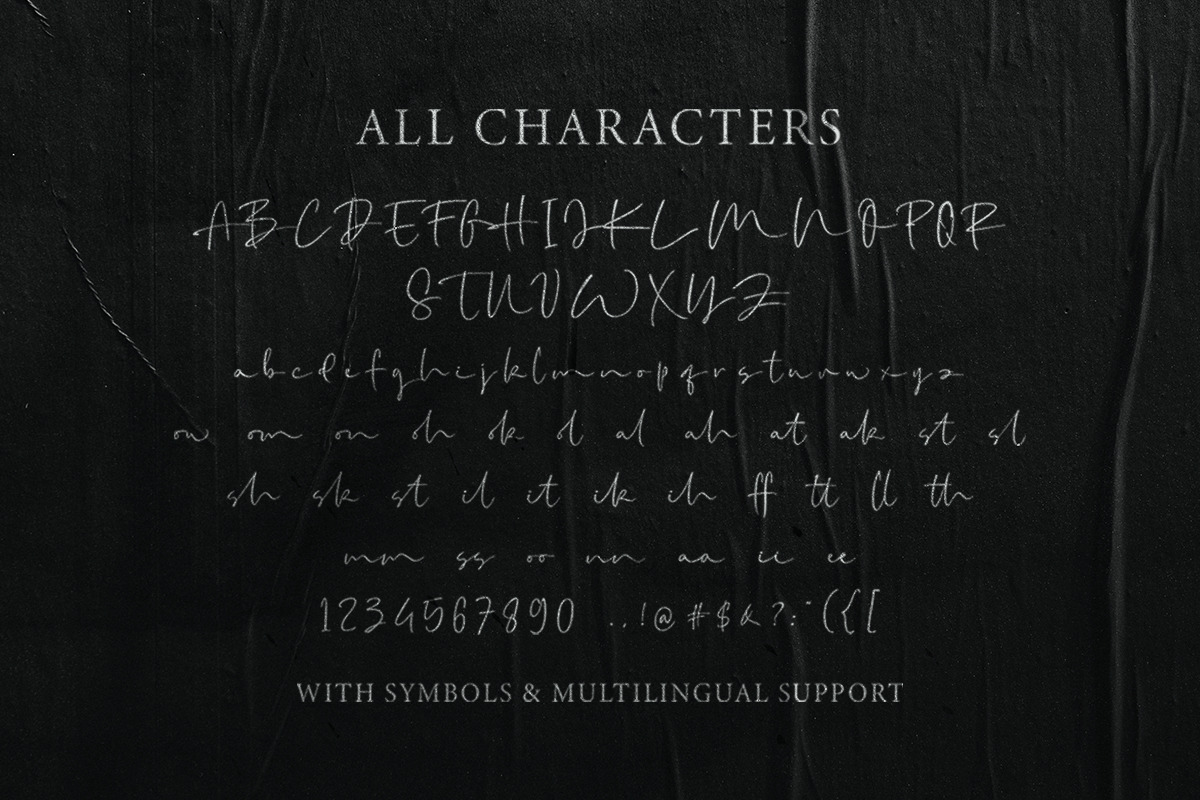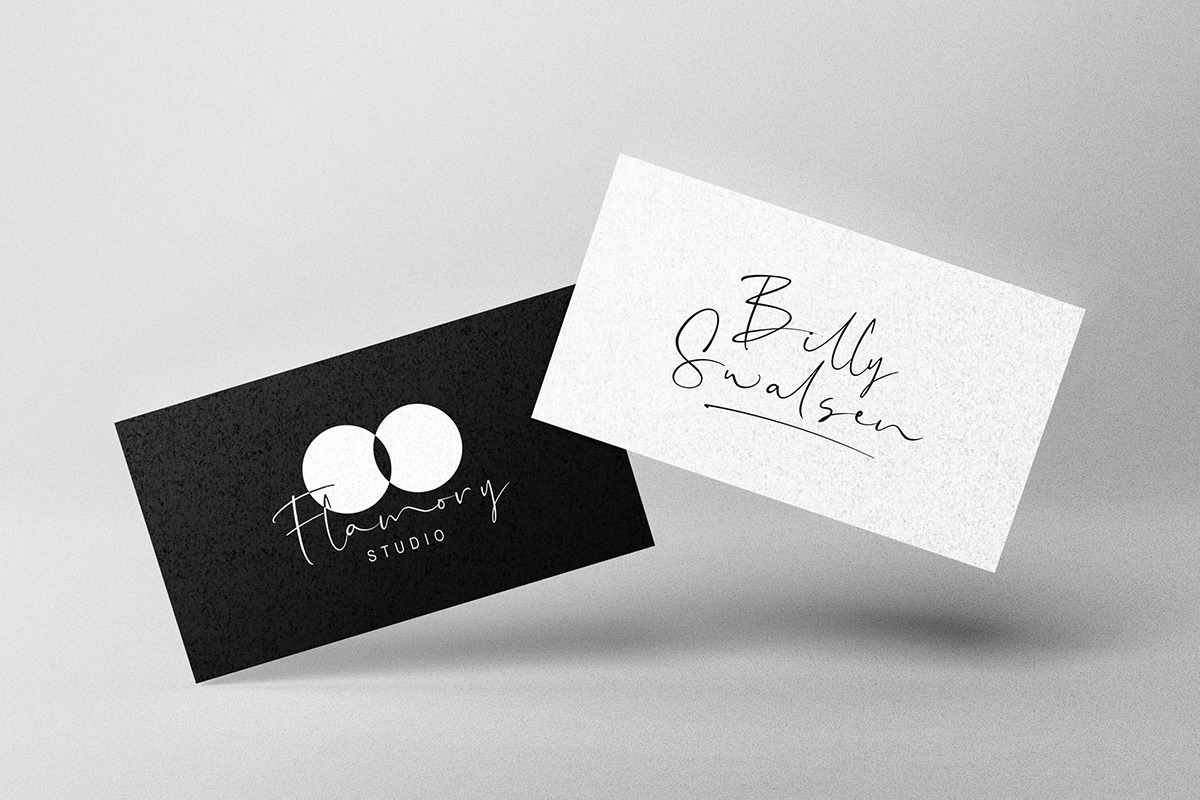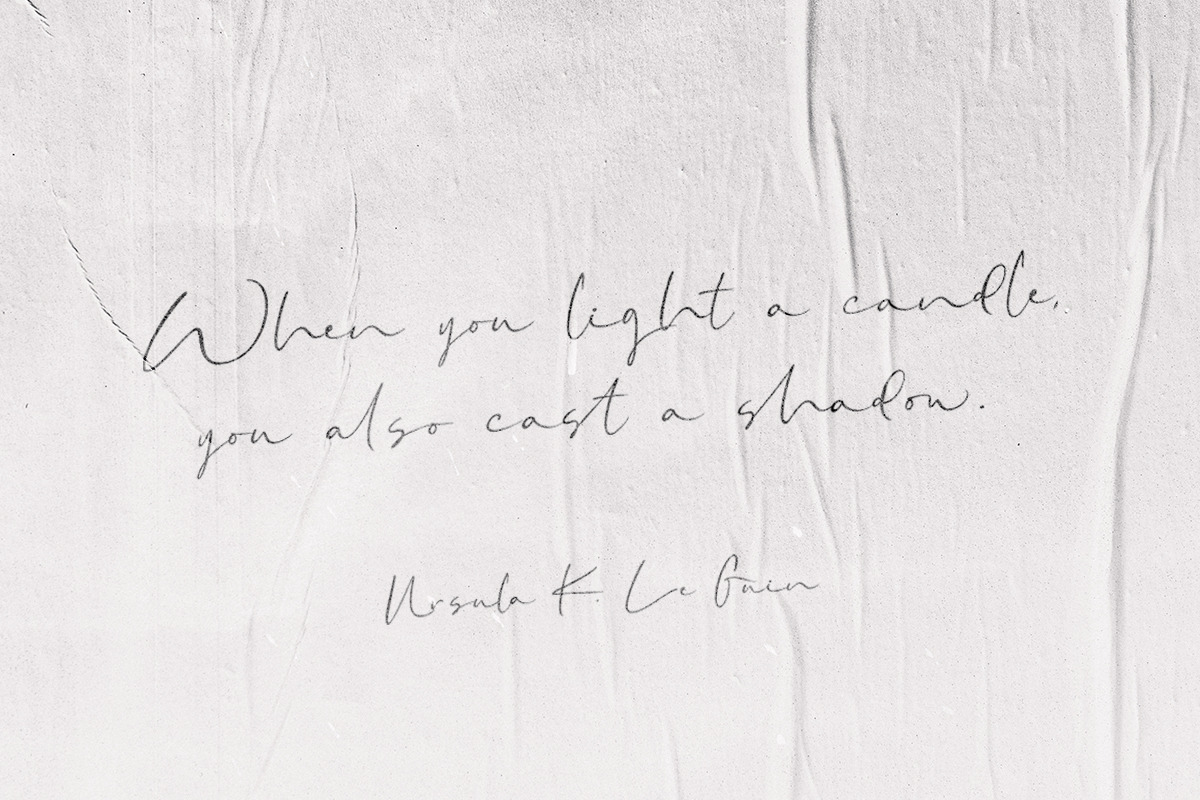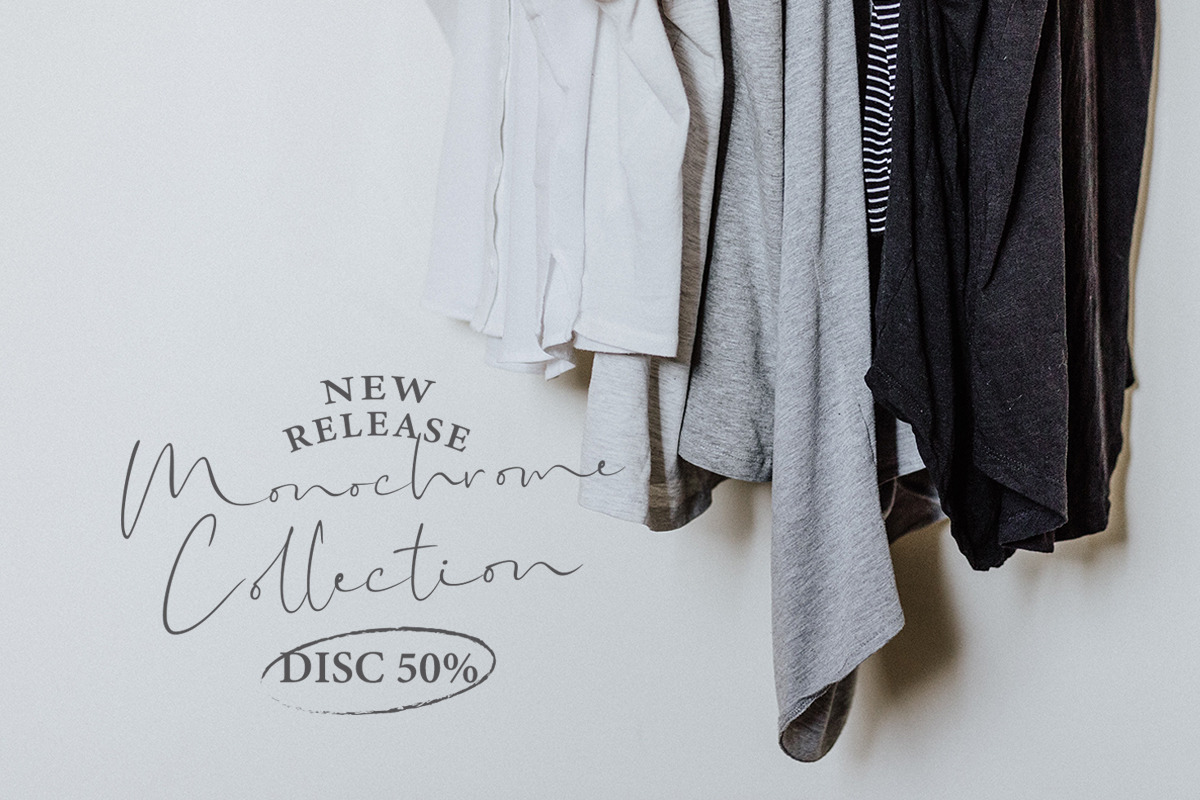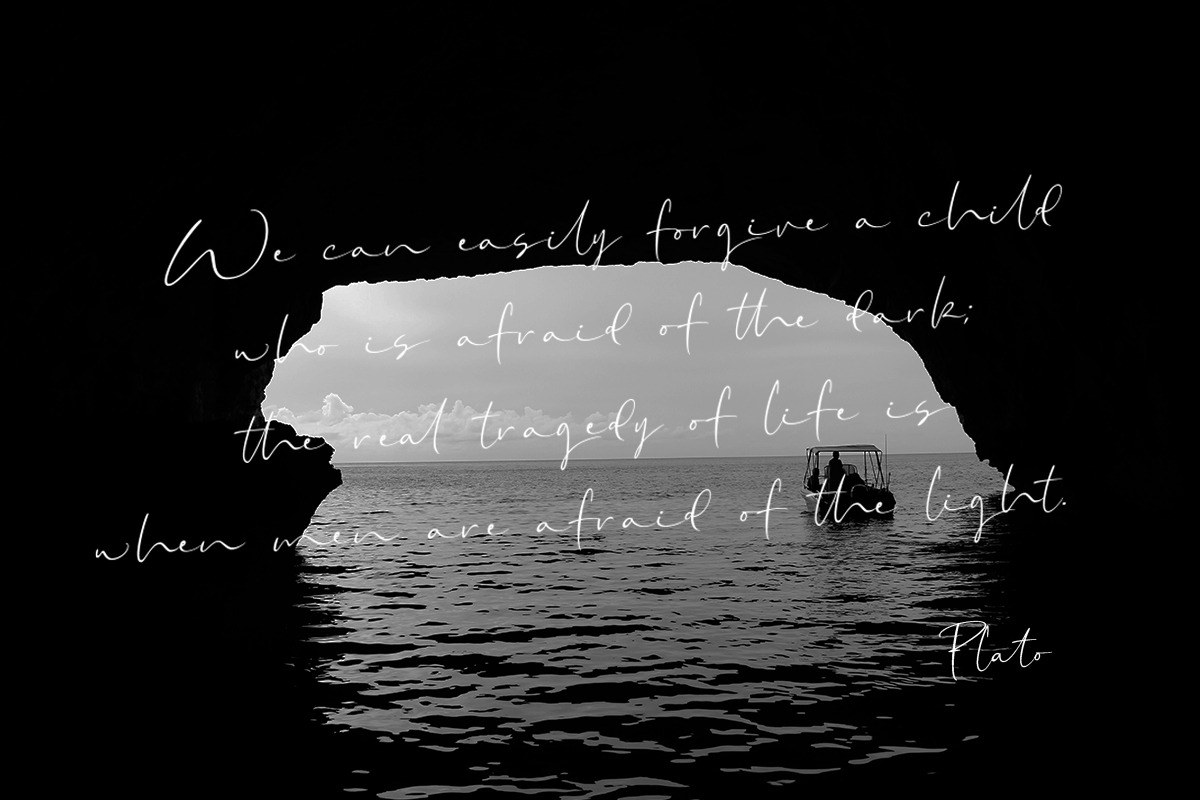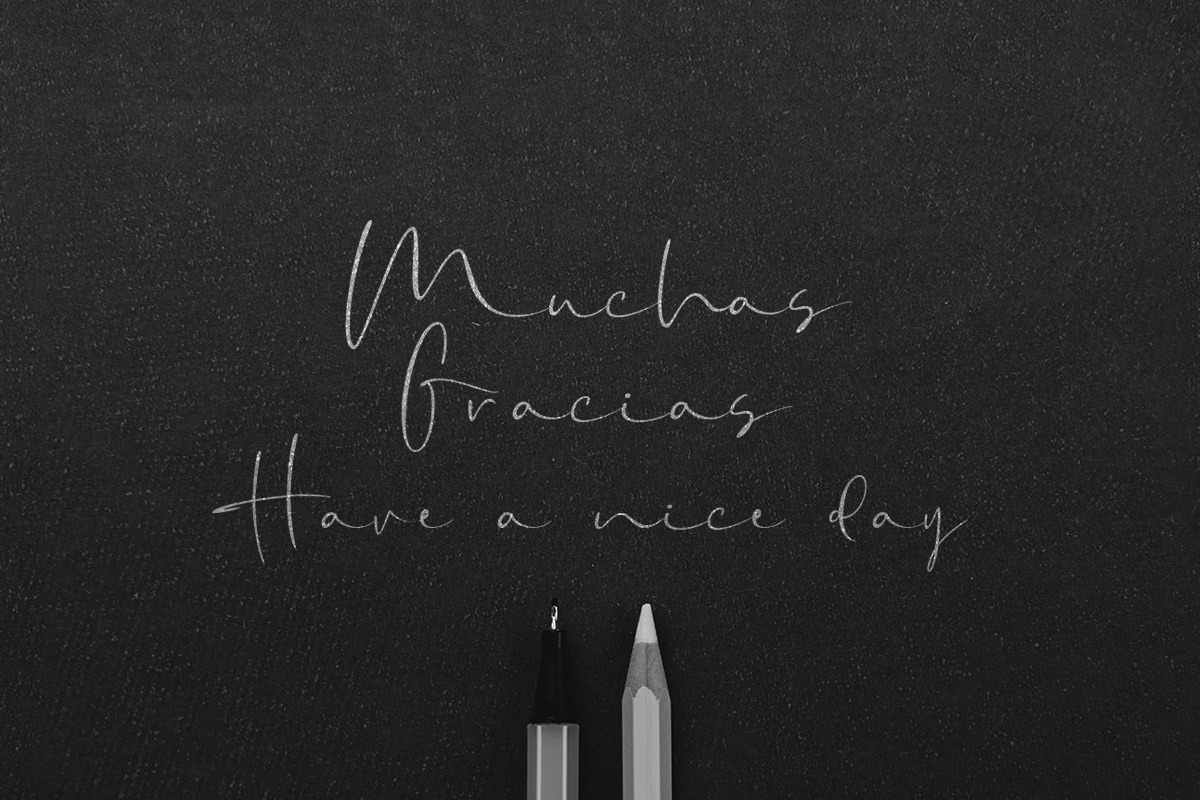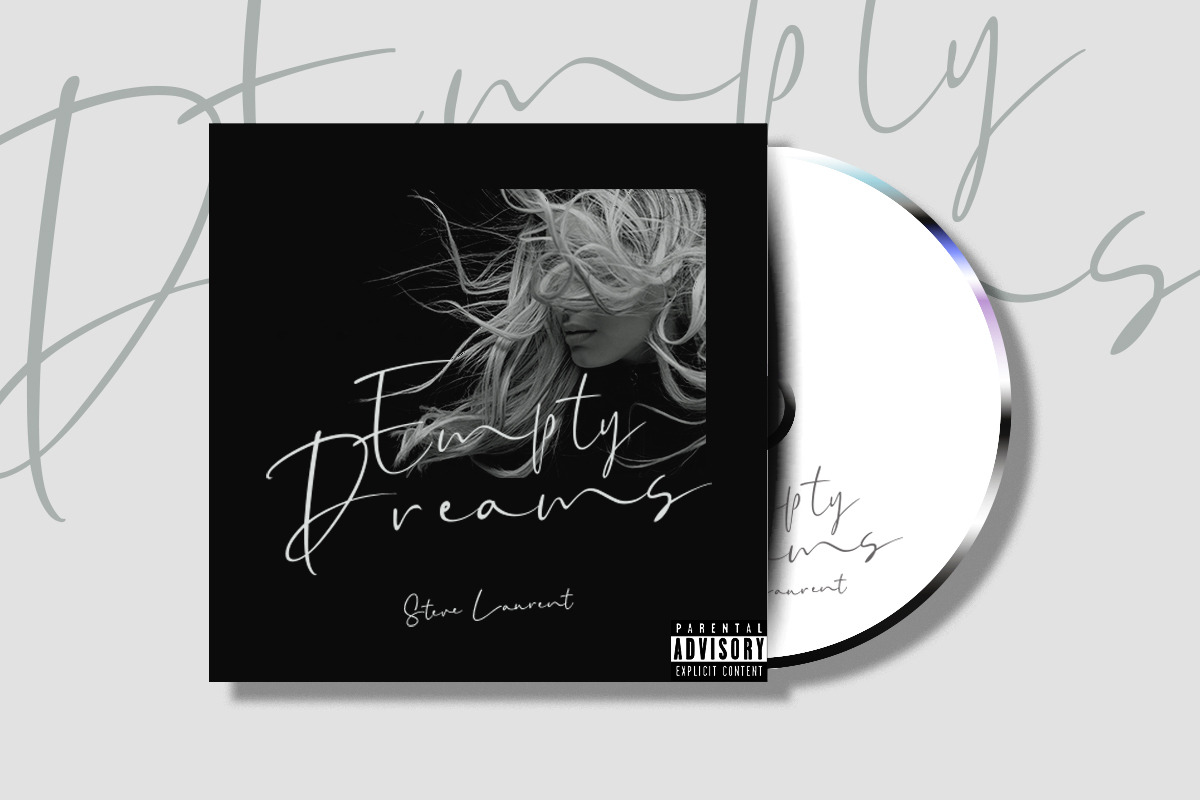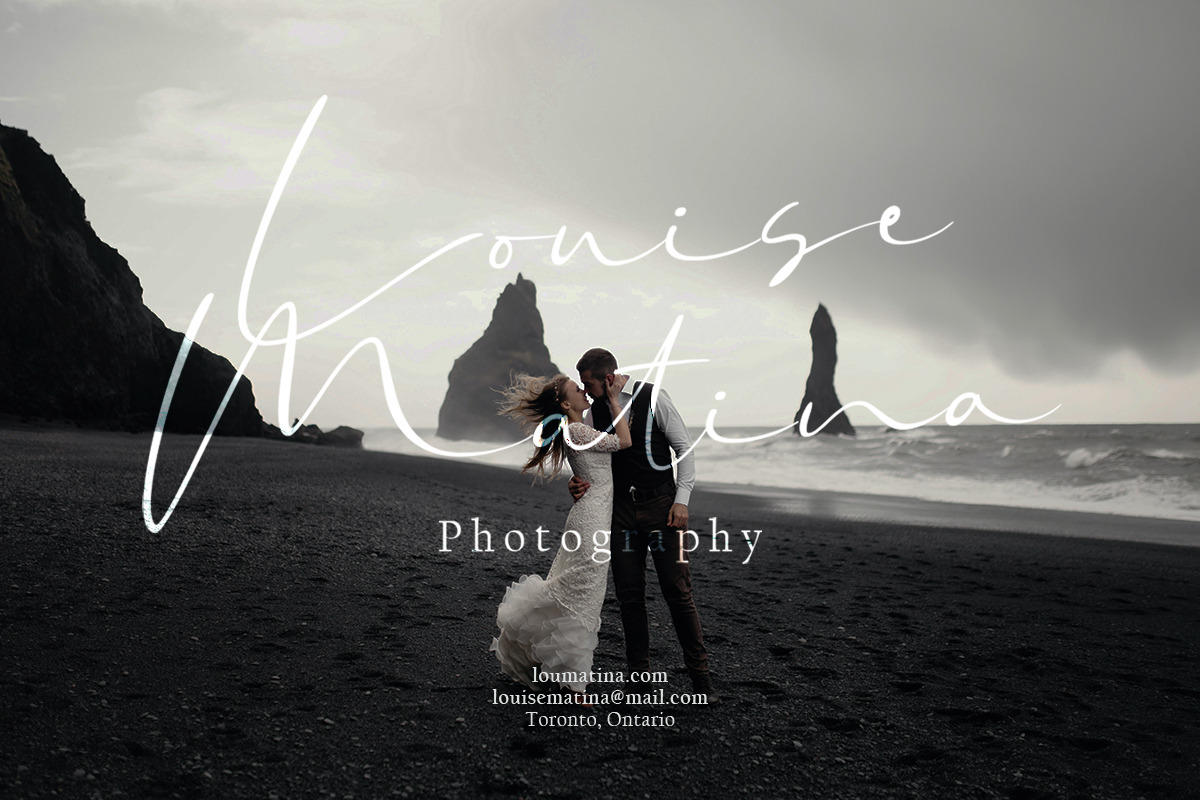
Amillia Rochete - Signature Script
Amillia Rochete is an script font based on authentic hand writing with natural signature style. This type of font perfectly made to be applied especially in logo, and the other various formal forms such as invitations, labels, logos, magazines, books, greeting / wedding cards, packaging, fashion, make up, stationery, novels, labels or any type of advertising purpose.
- alternates and ligatures
- swashes